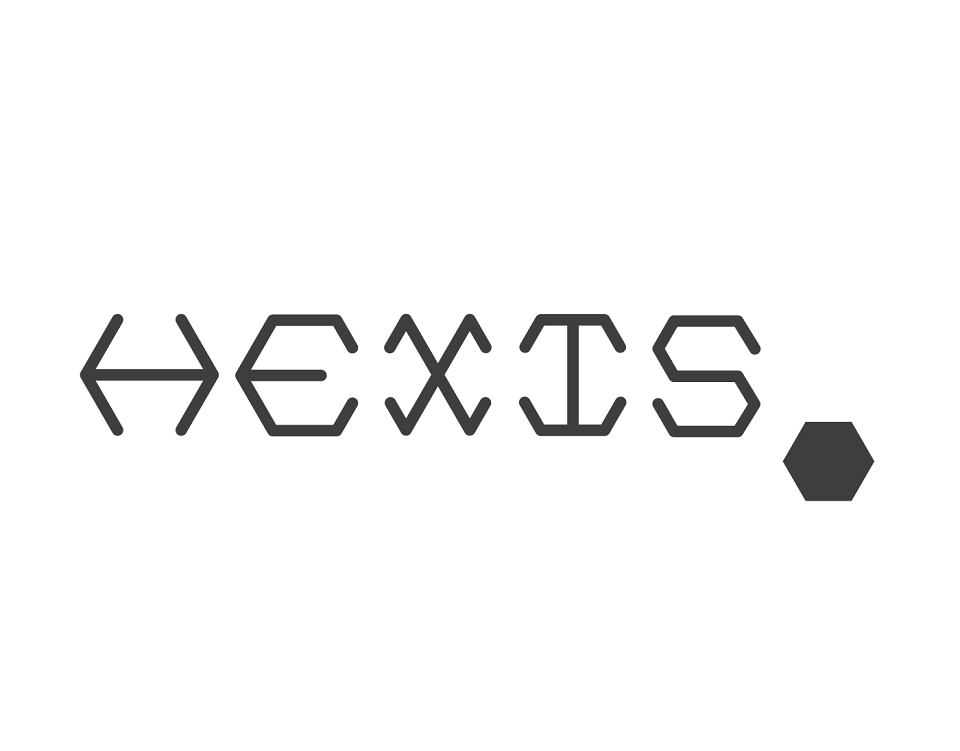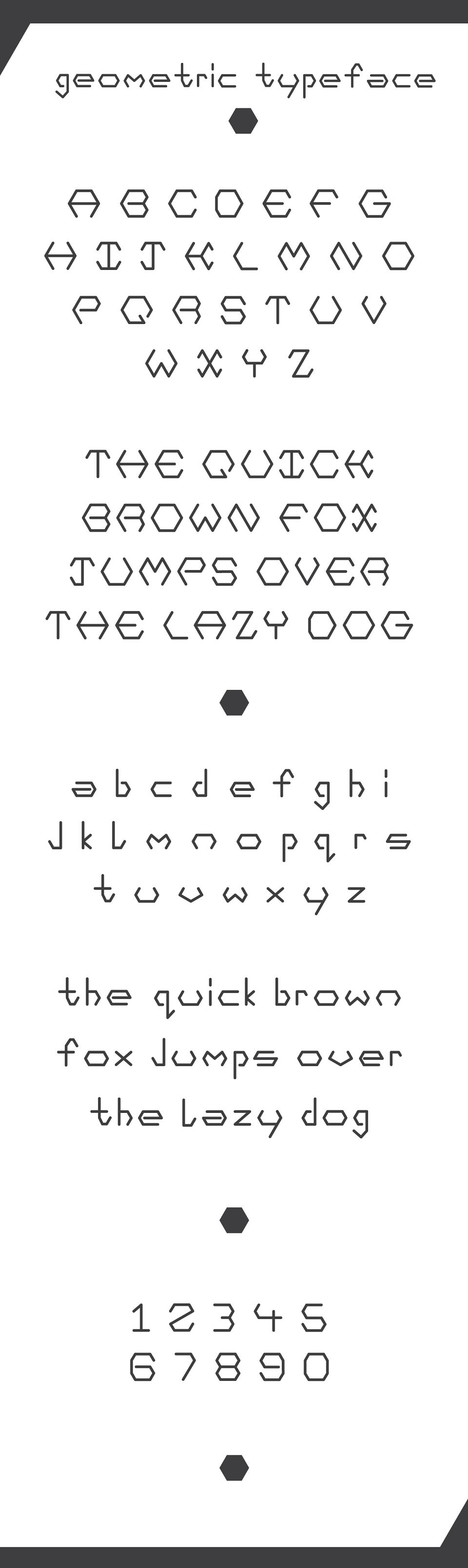
Typgraphy side project I created in my own time.
Simple geometric typeface based on the shape of a hexagon avaiable in Uppercase, Lowerase and numbers.
HEXIS Geometric Typeface